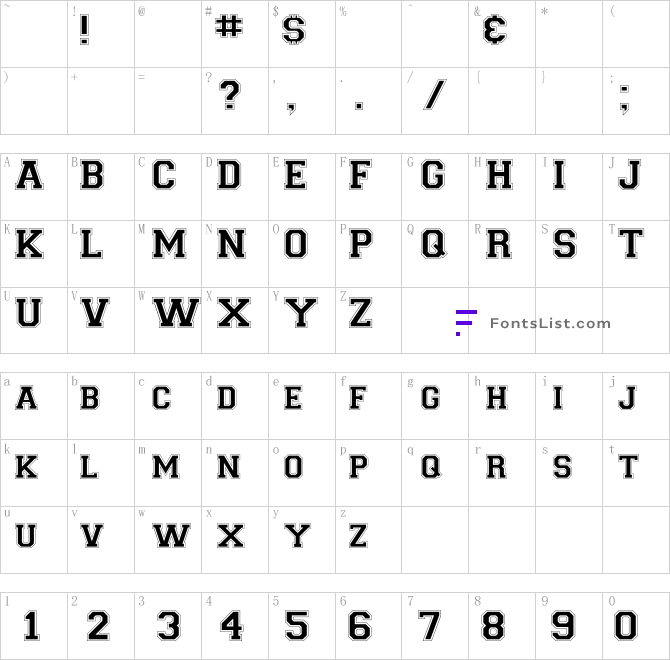
- Font Name:Applegater-Normal
Applegater-Normal.ttf is a very beautiful artistic font, Applegater-Normal.ttf is widely used in the design and printing of various books and pictures,Applegater-Normal.ttf has a strong visual impact,Applegater-Normal.ttf is a commonly used font in newspapers, magazines and books, and is used in posters, e-commerce Poster design, store design, logo design, font design and other fields.Applegater-Normal.